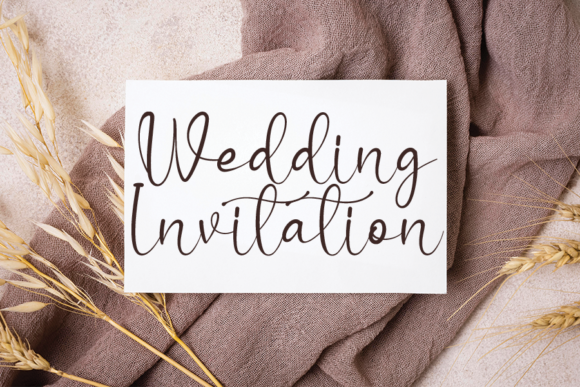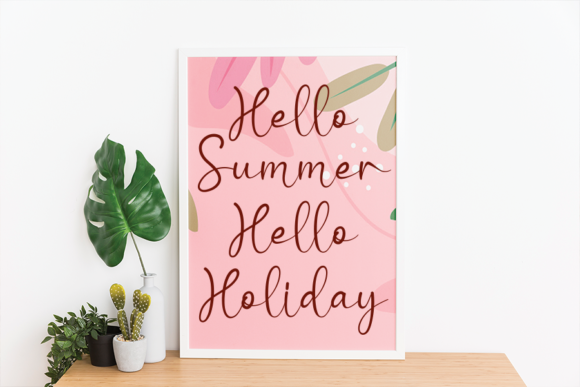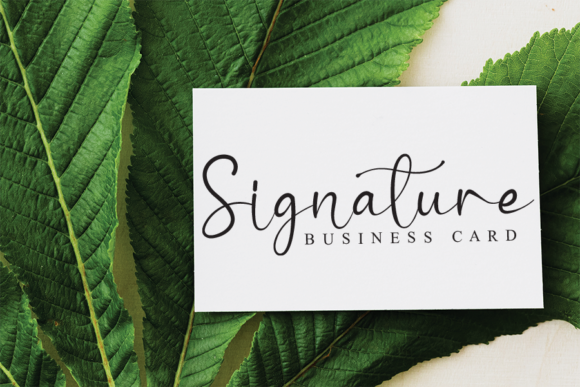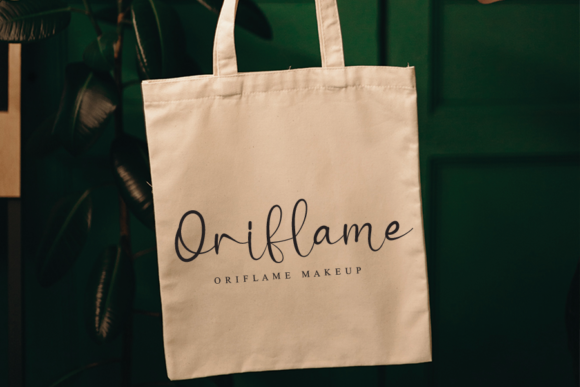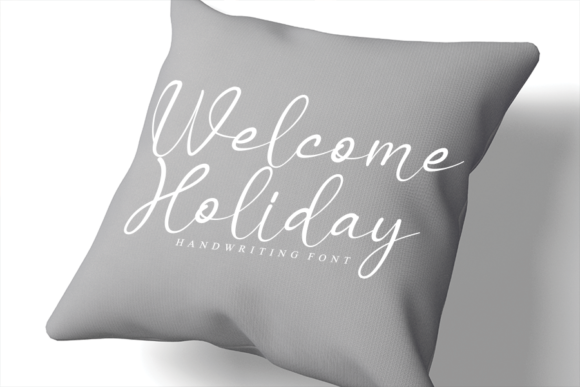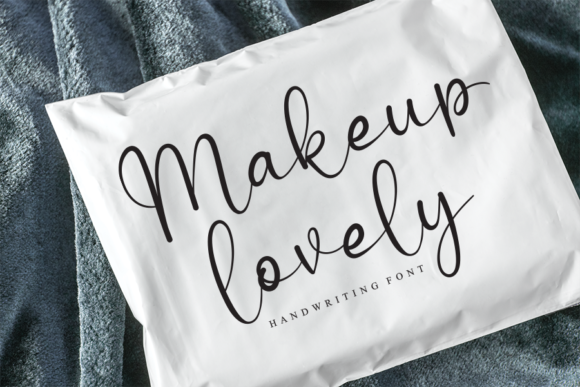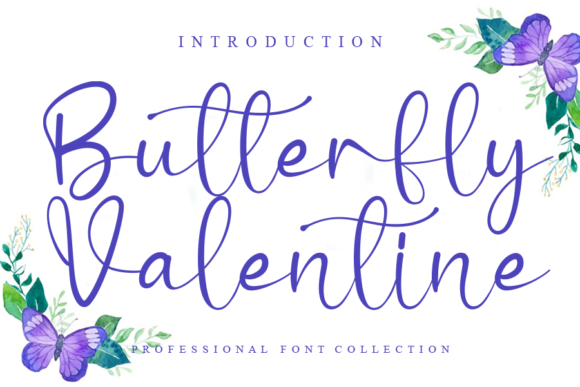
The Butterfly Effect: How Butterfly Valentine Font Can Elevate Your Designs
I’ll never forget the time I was working on a Valentine’s Day project for a client, and I just couldn’t find the right font to capture the sweetness and playfulness of the occasion. I scrolled through page after page of Google Fonts, tried out a dozen different options, but nothing seemed quite right. That was until I stumbled upon Butterfly Valentine Font. 💕
Masterfully designed to become a true favorite, this font has the potential to bring each of your creative ideas to the highest level! In this article, we’ll dive into what makes Butterfly Valentine so special, its unique features, and how to make the most of it in your designs.
So, what makes Butterfly Valentine Font so special? Here are a few things that I absolutely love:
- ✨ Unique and playful handwritten style that’s perfect for creative projects
- ✅ Extensive character set, including support for multiple languages
- 💖 Beautifully designed swashes and glyphs to add a touch of elegance
- 🎉 Easy to read and works well for both headings and body text
- 🤔 Some users may find the font a bit too ornate for very long blocks of text
- ⚠️ Limited support for certain special characters (but who needs those, right?)
The Designer Inspiration Behind Butterfly Valentine
According to its creators, Butterfly Valentine Font was inspired by the beauty and delicacy of butterflies. The designers wanted to capture the essence of these lovely creatures in a font that would be both playful and elegant. And I think they succeeded! 🦋
| Is Butterfly Valentine Font suitable for body text? | While Butterfly Valentine Font is beautiful, it’s best suited for headings and short blocks of text. |
And that’s it! With its unique style, extensive character set, and beautiful swashes, Butterfly Valentine Font is sure to become a favorite in your design arsenal. Happy designing! 🎉